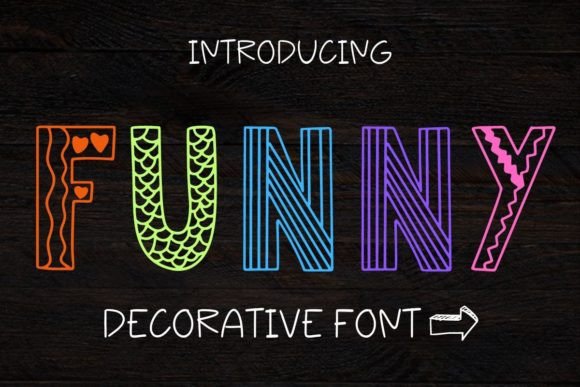
Are you looking for the perfect font to use on a birthday card? Look no further than Funny Font! This decorative font, created by the talented zikadoozz, is not only the best font for a birthday card, but it's also cool and fun.
With its cute and jolly appearance, Funny Font is sure to enhance the aspect of any of your designs. Whether you're working on a creative project or planning a party, this font is the perfect addition to make your designs come alive.
Don't settle for boring, generic fonts that don't capture the spirit of your message. Instead, choose Funny Font and let your creativity shine! From invitations to posters to social media graphics, this font is sure to catch the eye and make your message stand out.